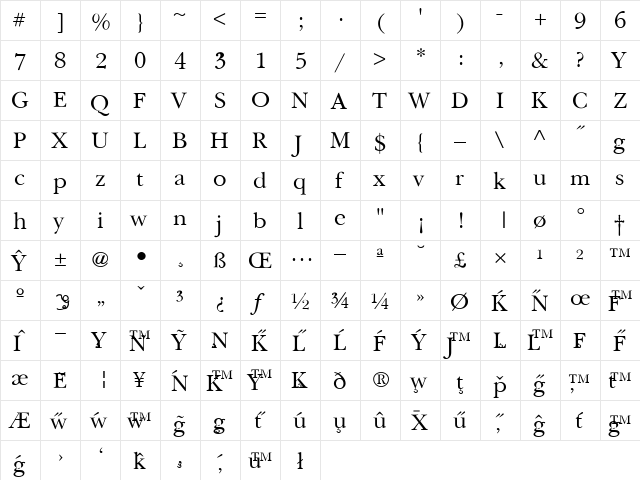
Religion Regular Font Preview
Religion Regular
Religion Regular Font Details
Design Context for Religion Typeface
Religion offers clean, dependable letterforms without strong stylistic allegiance, making it a practical choice for designers who need flexibility.